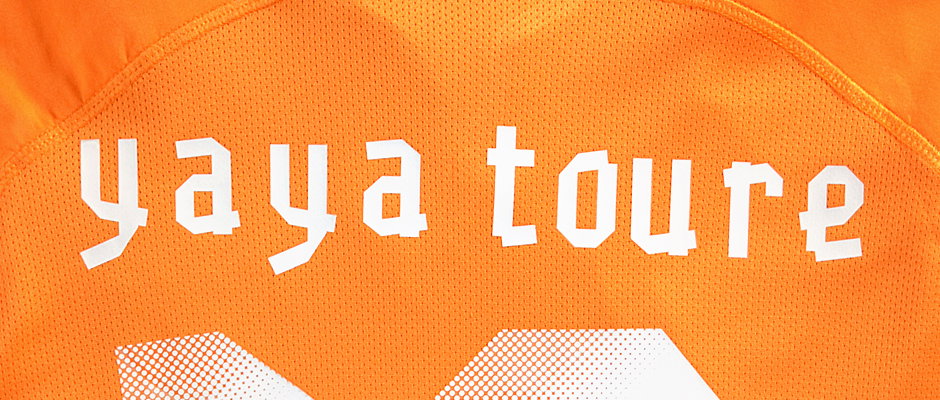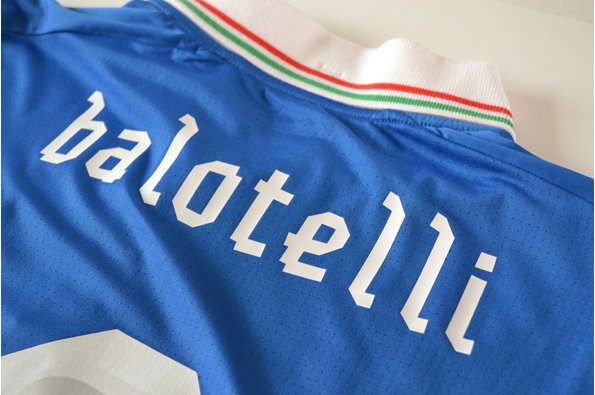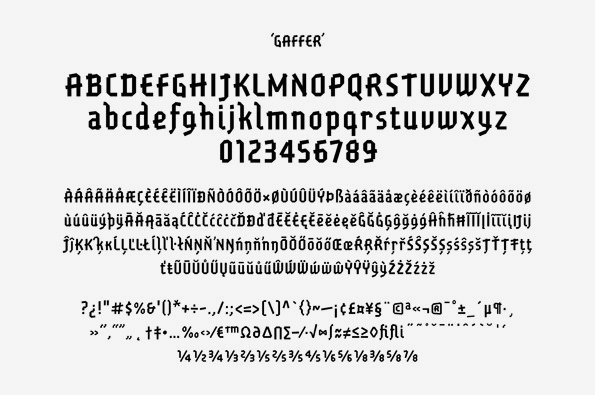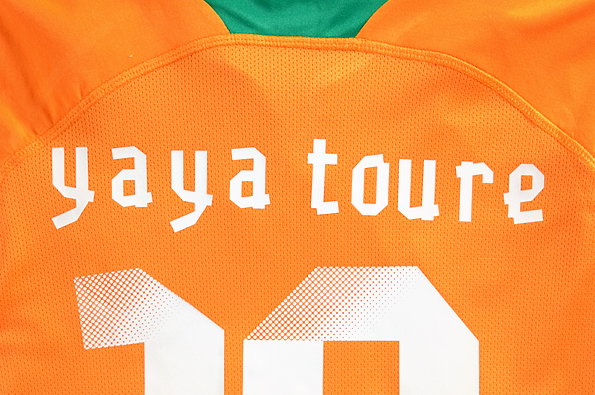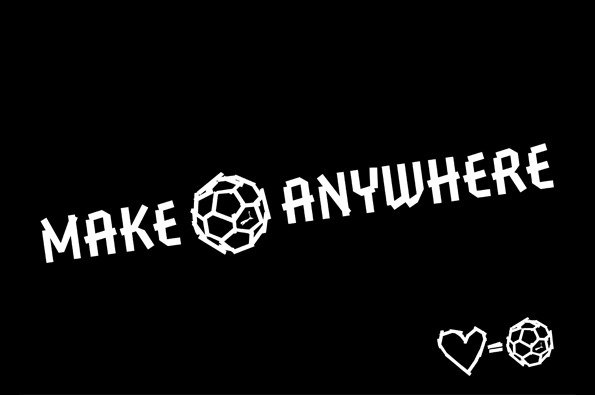
GBH's typeface for PUMA inspired by parks' football staple gaffer tape
At any Sunday league football game there are certain phrases you always hear. “Let’s get at it lads!” “Offside?! Lino! Lino!” and perhaps more surprisingly “Has anyone got any tape?” Tape plays a pivotal role in amateur footy, from securing the nets to holding shin pads in place, so it seems appropriate that London design studio GBH has created PUMA’s new typeface out of gaffer tape.
Inspired by the brand’s Make Football Anywhere” DIY campaign, GBH wanted to capture the “raw, passionate enthusiasm” of grass-roots football.
“The start point was to order 150 rolls of tape and begin experimenting with folding, ripping and sticking it into shapes, to form a full Roman alphabet and the all-important kit numerals,” GBH’s Jason Gregory told It’s Nice That.
“Once we were satisfied with the look and proportion of each character, type impresarios Dalton Maag were brought in to help develop the full Roman character set, and under the art direction of GBH, add all European accents before building a fully working, digitised font.
“The finished result is not only a unique typeface which stands out from the competition, but a typeface which clearly stands out on the pitch for its legibility and brevity.”
Not only is it an eye-catching design, it’s also a nice link between the world-class talents who will wear the typeface on their kits and those who play football simply for the love of it. Speaking from experience, amateurs can sometimes feel completely alienated from the slick superstars they emulate (badly).
GBH: Gaffer
Gaffer on an Italy shirt
Gaffer on an Ivory Coast shirt
The Make Football Anywhere campaign poster